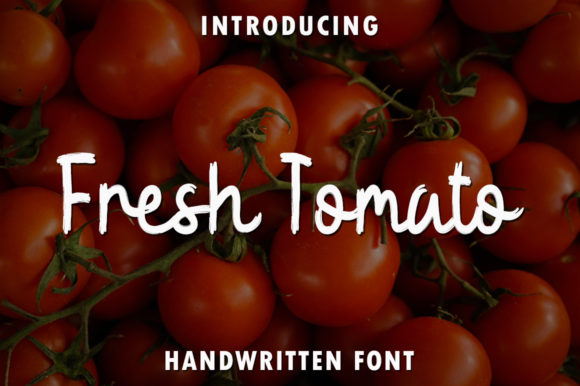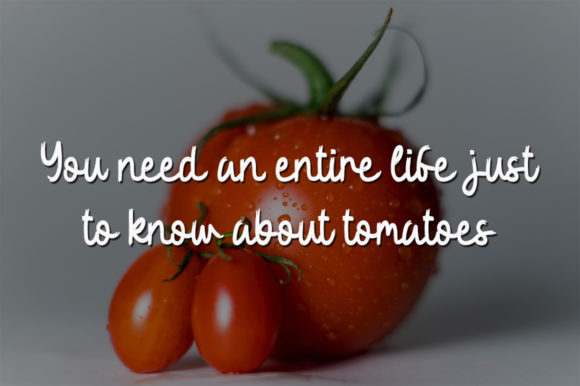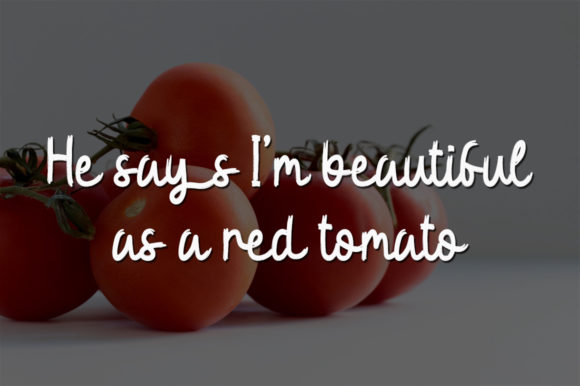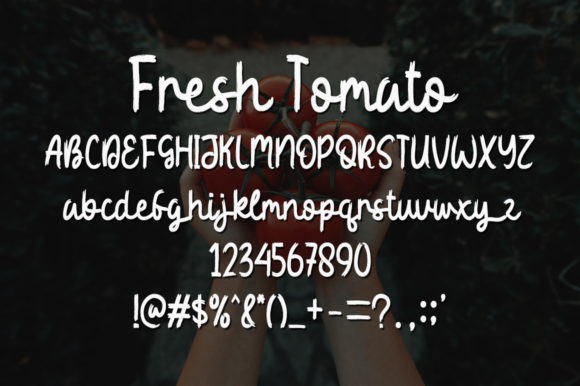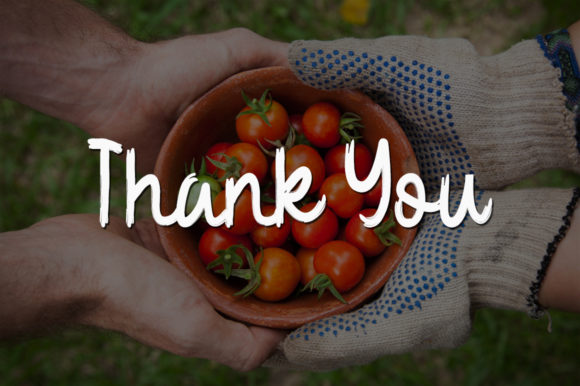
Fresh Tomato Font
About Fresh Tomato Font
Fresh Tomato is a sweet, round lettered handwritten font. It is the best choice for creating eye catching logos, branding and quotes. Every letter has a unique and beautiful touch, which will make your design come alive!